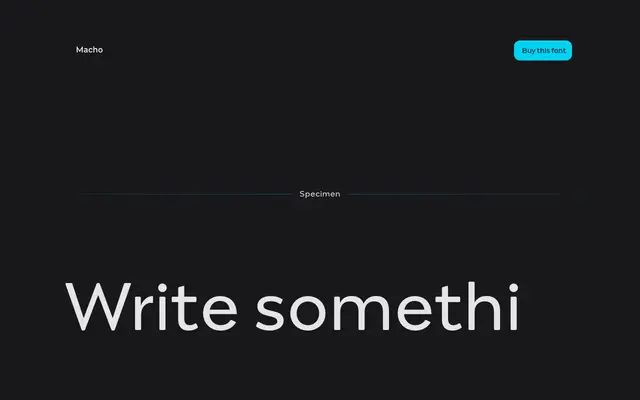
Macho
A nine-weight grotesque sans by Michał Jarociński, covering Latin and Cyrillic with a full suite of OpenType features including small caps, ligatures and superscript and subscript glyphs.
Designed by Michał Jarociński at Capitalics, Macho runs from Thin to Black across nine weights, each with a matching italic, giving 18 styles in total. OpenType features include small capitals, fractions, ordinals, alternates, ligatures, local forms and a complete set of superscript and subscript glyphs. Latin and Cyrillic coverage makes it a capable choice for multilingual editorial and identity work.
The page does not specify a precise subcategory, but the specimen and naming conventions suggest a general-purpose grotesque sans-serif with a wide weight range and broad language support.